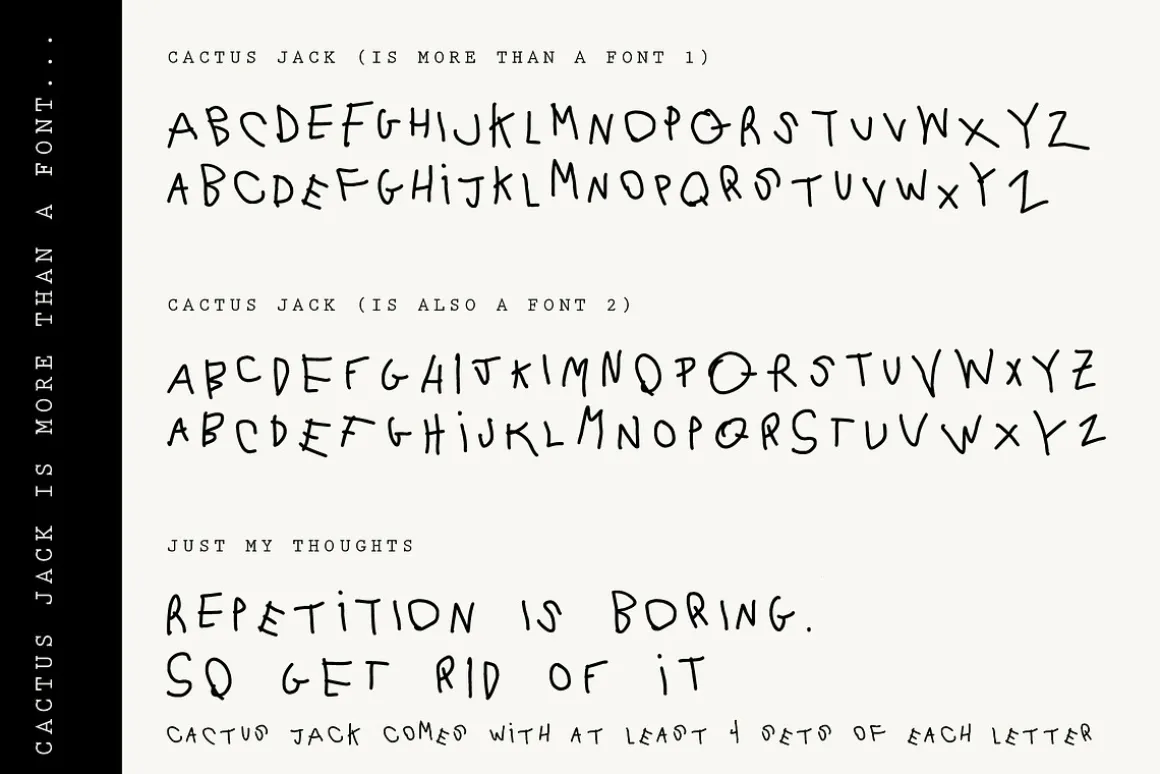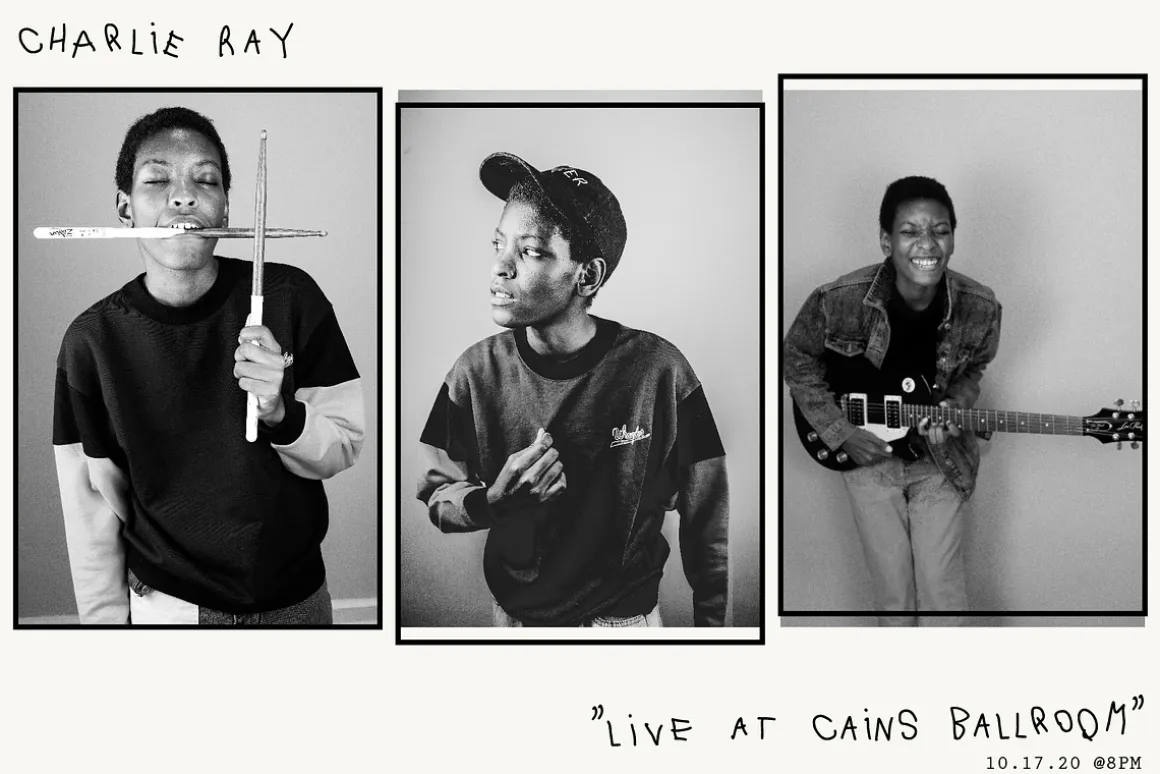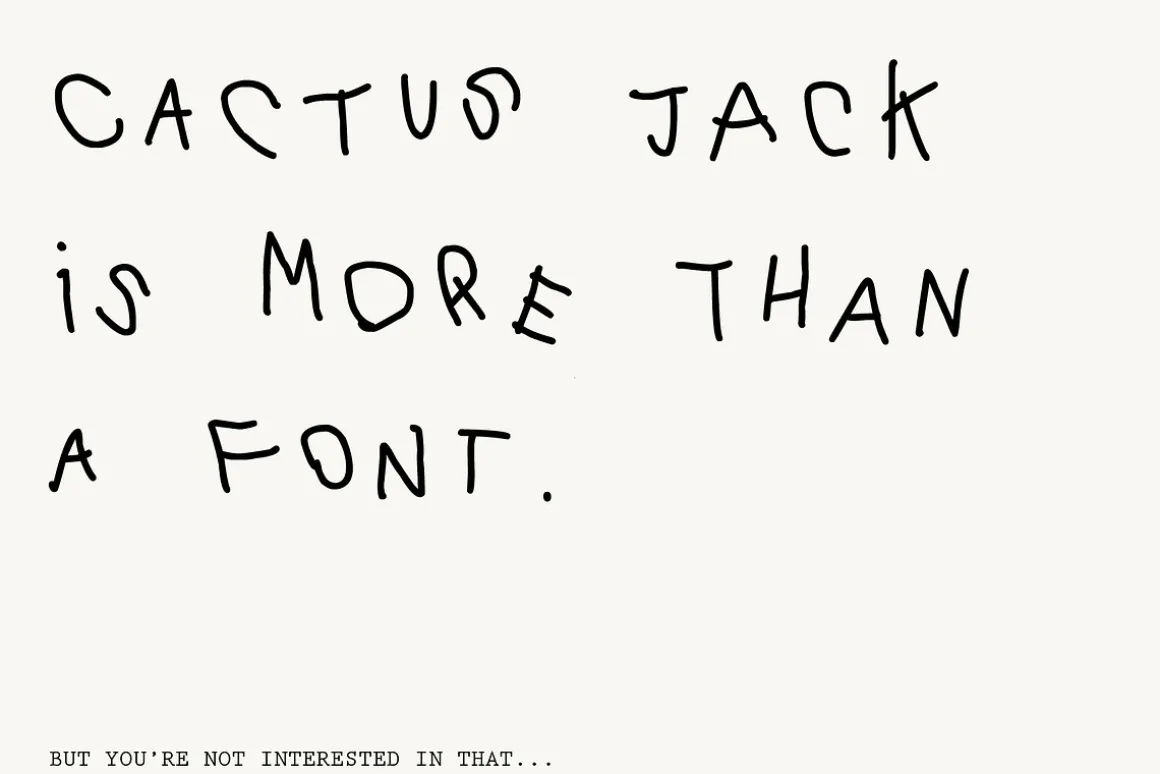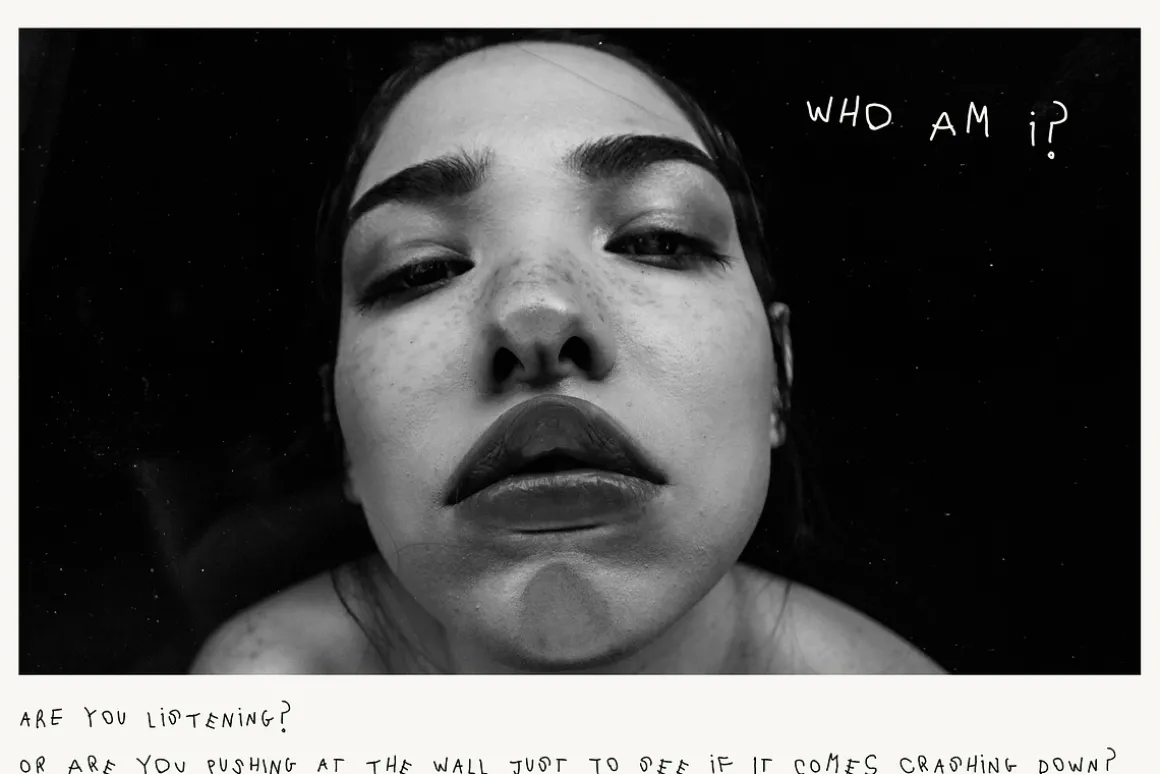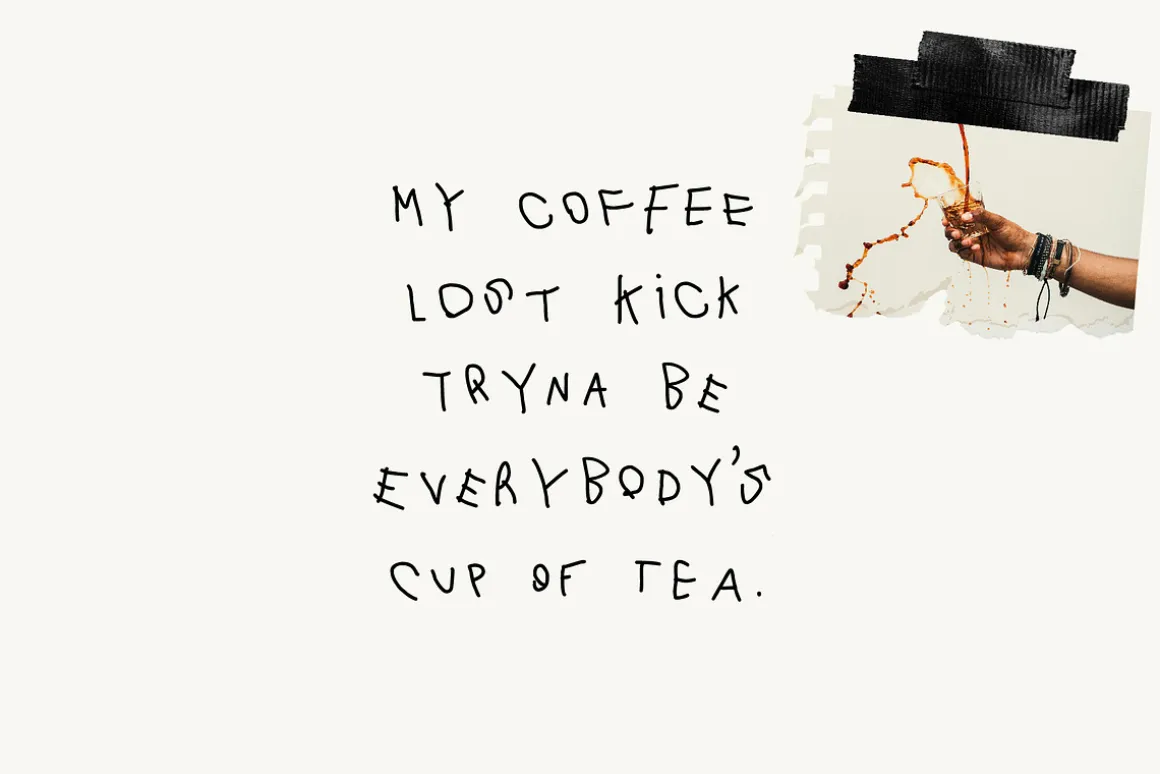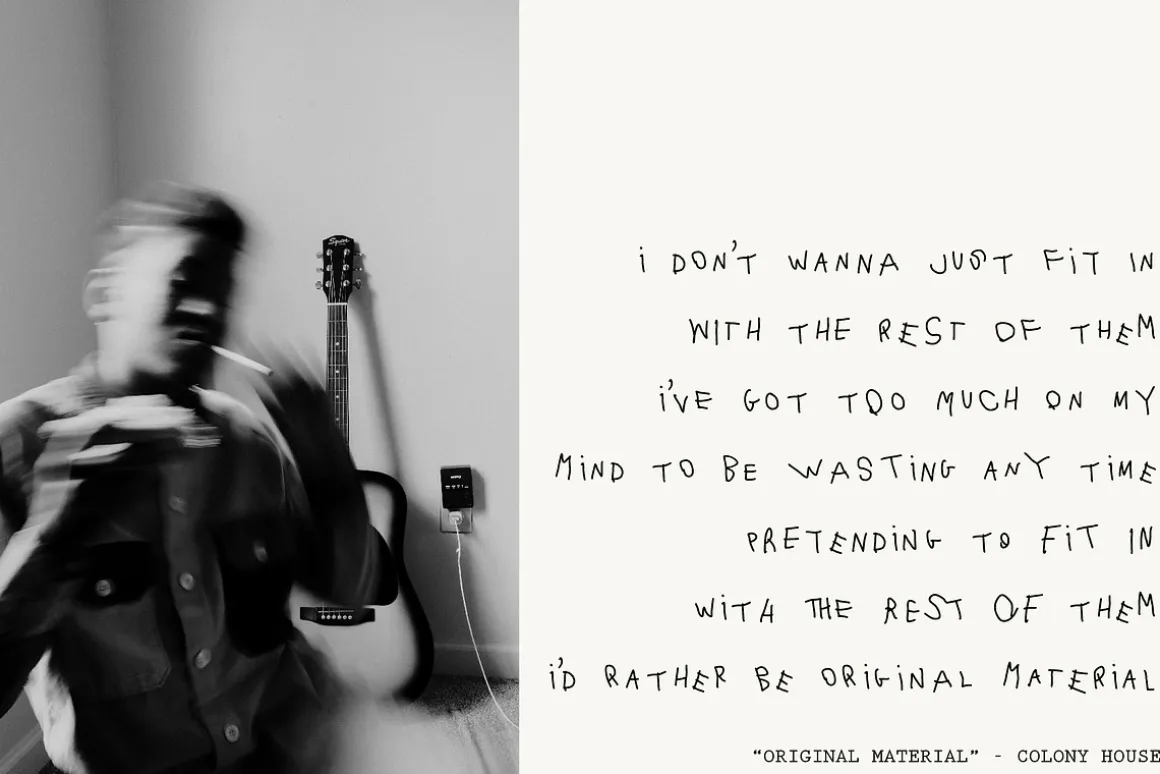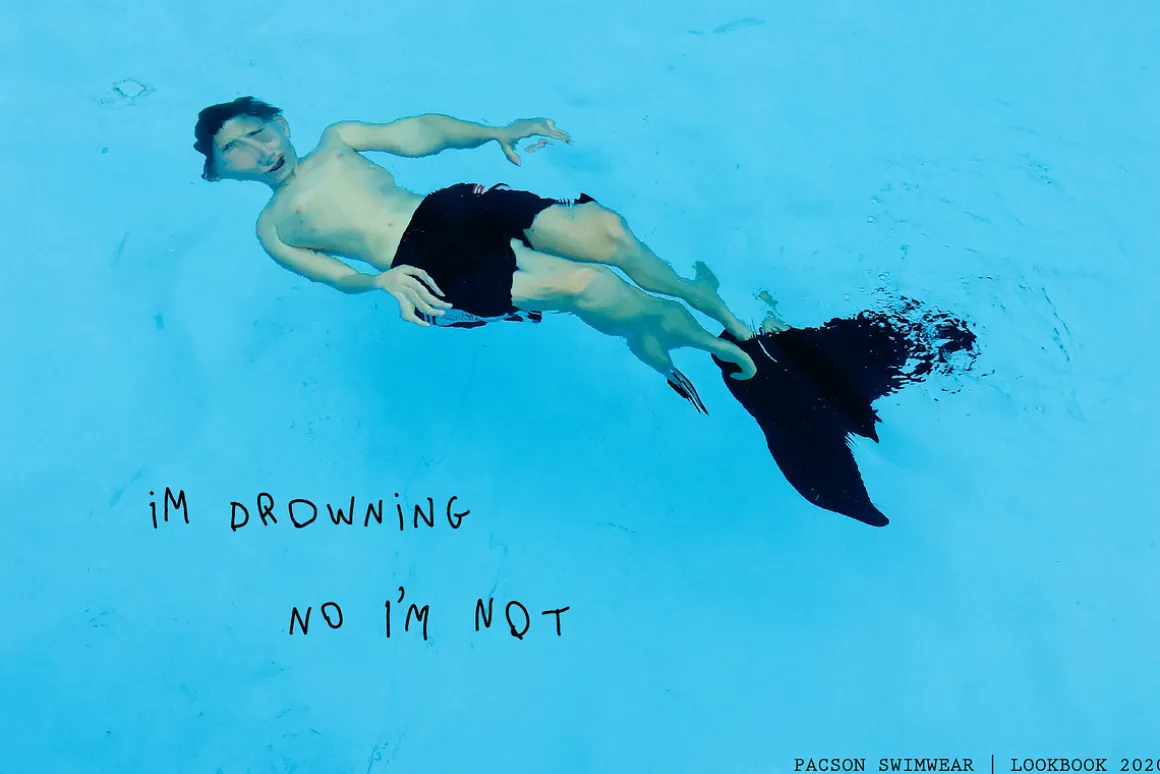
ABOUT CACTUS JACK FONT
Cactus Jack is more than just a font. It’s a feeling in your bones, it’s a perspective on life, it’s a war cry to be heard…But it’s also a font. This gritty and oddly stylish font pack comes with not one BUT TWO hand drawn fonts. That’s over 125 regular character variations and 50+ international language characters. This guarantees you never have to have repetitive characters in your designs. Mix-n-match to your hearts desire! Perfect for your online quotes, social media campaigns, and more!
-Over 25 Bonus Alternate Characters including ligatures
-Over 50 International Language Characters (ENGLISH, FRENCH, SPANISH, GERMAN, POLISH, ITALIAN, PORTUGUESE)